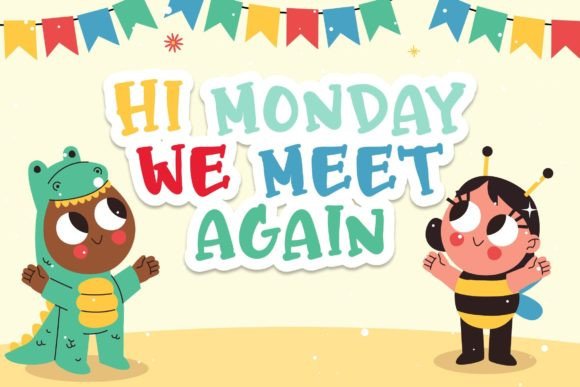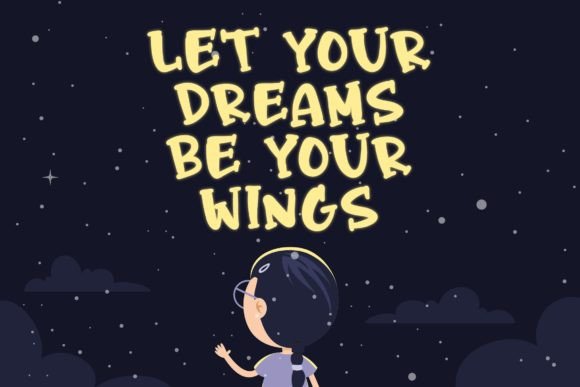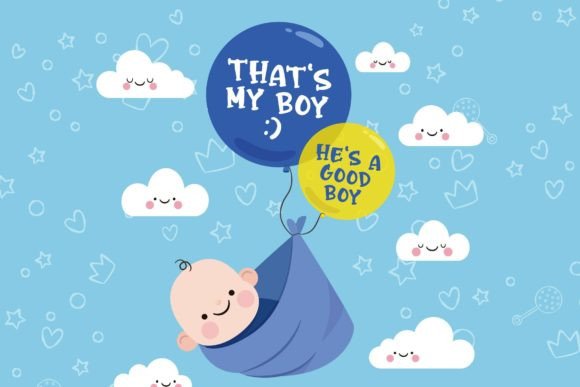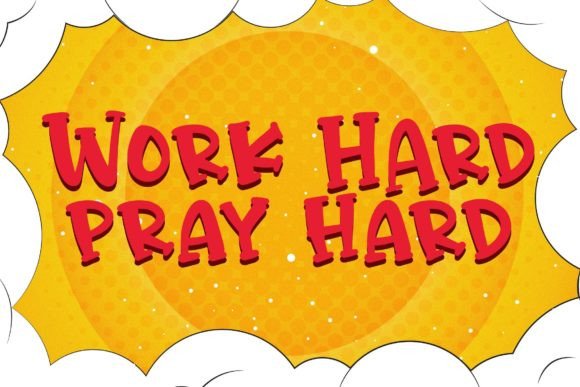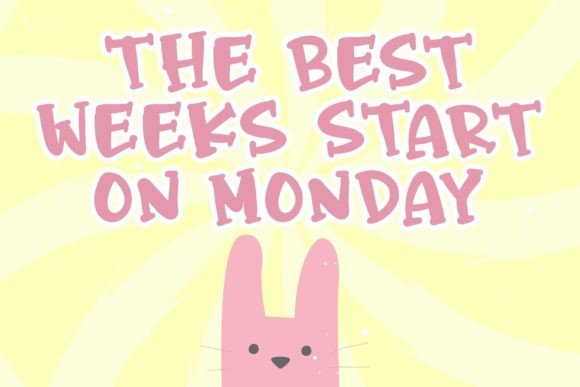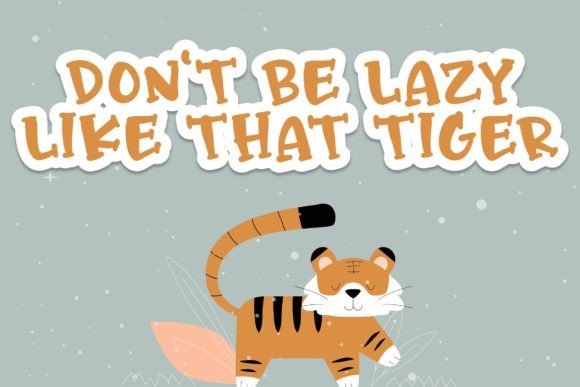
Introduction to Mockey Smart Font
Have you ever been stuck in front of a blank canvas, staring blankly at your computer screen, searching for the perfect font to bring your creative project to life? We’ve all been there. It’s a moment of pure frustration, until suddenly, inspiration strikes and you stumble upon the perfect font. For designers, finding that elusive perfect font can make all the difference between a mediocre design and a truly outstanding one.
That’s where Mockey Smart Font comes in – a high-quality, cartoon display font that’s sure to add a fun touch to any project. With its transparent background and versatility, Mockey Smart Font is the ultimate design resource for creatives. Whether you’re working on a logo, branding project, or homeware design, this free download is sure to bring a smile to your face and a boost to your creativity.
Key Features of Mockey Smart Font
- High-quality, professional font design ideal for creative projects requiring a unique touch.
Honest Review: Mockey Smart Font
I recently had the chance to work with Mockey Smart Font on a creative project, and I was quite impressed with the results. This high-quality font is perfect for designers who want to add a unique touch to their designs.
- The font has a transparent background, making it easy to use in designs with complex backgrounds.
- The high-quality design makes it perfect for use in logos, branding materials, and other creative projects.
- The font is highly customizable, allowing designers to adjust the style and layout to fit their needs.
- The font may not be suitable for use in very small sizes, as the details can get lost.
- The font is not as extensive as some other font collections, with a relatively small number of styles and weights.
Overall, I’m very impressed with Mockey Smart Font. It’s a great addition to any designer’s toolkit, and I would definitely recommend it to anyone looking for a high-quality, free download font.
To get the most out of Mockey Smart Font, experiment with different font sizes and styles to find the perfect combination for your design. You can also use it in conjunction with other design resources to create unique and eye-catching designs.
Mockey Smart Font is commonly used in various design projects, including logos, brochures, and social media graphics. Its high-quality features and transparent background make it an ideal choice for designers looking to create professional-looking designs.